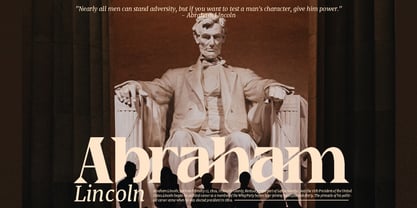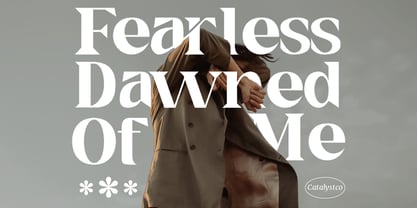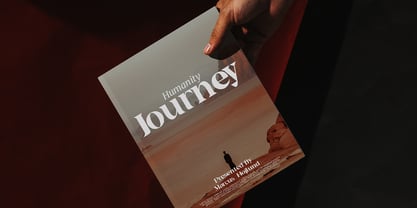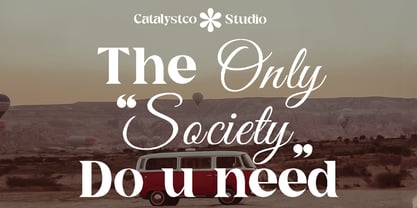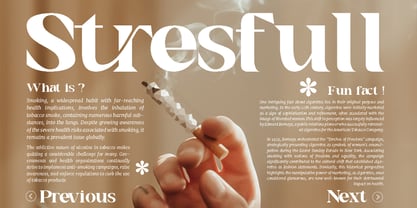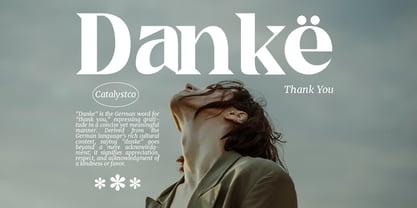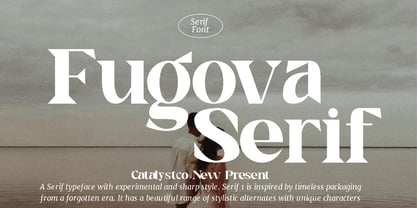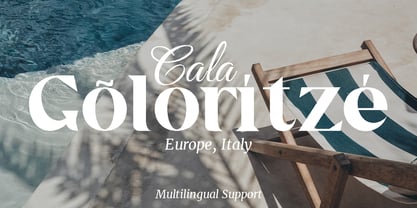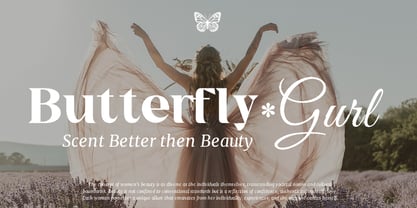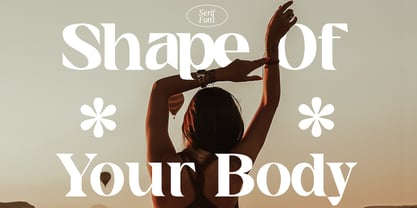
Fugova
The Fugova Font Family was designed by and published by Catalystco Std. Fugova contains 1 styles. More about this family
Fugova is a modern display serif typeface that merges sharp, experimental cuts with a classic foundation. This font draws inspiration from timeless packaging and vintage editorial styles. Its strong contrasts, wedge-like serifs, and stylistic alternates give it a striking personality, perfect for upscale branding or dramatic layouts. Fugova is highly relevant for designers looking to inject sophistication and edge into their creative work. With its bold and elegant cuts, it’s ideal for luxury branding, fashion editorials, high-end packaging, poster design, and magazine layouts.